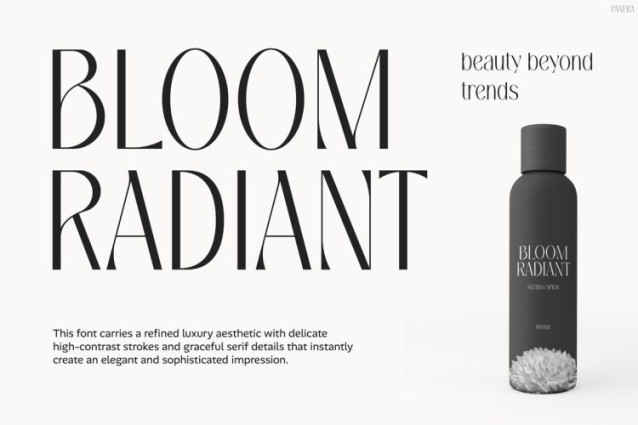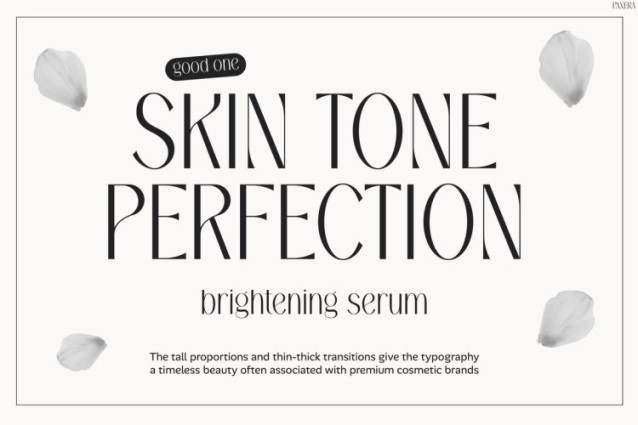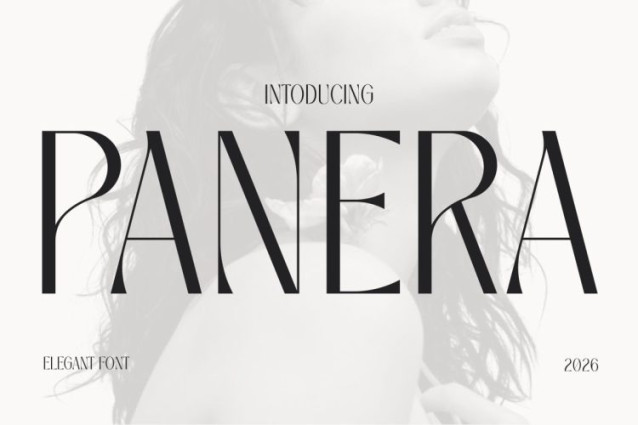
Panera Font
Panera Font is a modern luxury display font designed to bring elegance, sophistication, and premium beauty aesthetics into every design. With its slim serif structure, graceful curves, and high-fashion typography style, this font instantly creates a clean and luxurious visual atmosphere. Moreover, the refined letterforms make every headline feel more classy, artistic, and timeless. In addition, the balanced spacing keeps your typography highly readable, so your content stays elegant across both digital and print layouts. Because of its minimalist beauty-inspired appearance, Instagram Font Panera works perfectly for skincare branding, cosmetic promotions, fashion campaigns, and luxury social media content. Furthermore, the sleek typography helps every design feel more exclusive, polished, and visually captivating. At the same time, the modern serif details give your layouts a soft editorial touch that instantly attracts attention.Panera combines high-end fashion typography with clean minimalist aesthetics. As a result, every word feels luxurious, stylish, and visually refined. Not only does the font create a sophisticated atmosphere, but it also enhances the overall beauty of your branding with its elegant and graceful structure. Additionally, the thin serif styling makes your content look more modern and editorial-inspired. Meanwhile, the artistic proportions help every design feel balanced and professionally curated. Whether you are creating skincare packaging, beauty campaigns, or elegant Instagram posts, this font helps every project feel more premium and unforgettable.